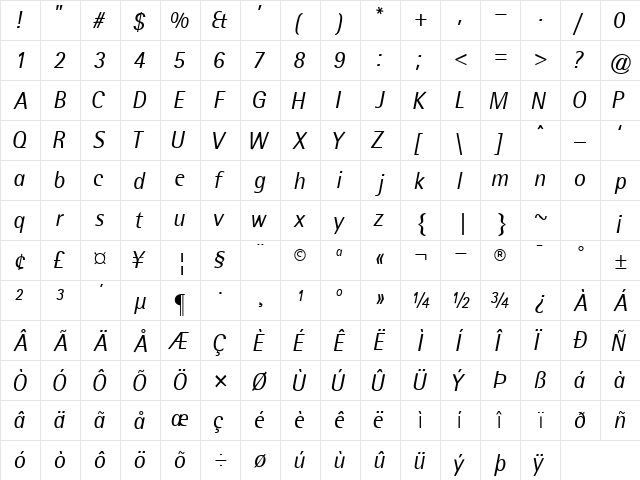
LibreSemiSansLightSSK Italic Font Preview
LibreSemiSansLightSSK Italic
Design Context for LibreSemiSansLightSSK Typeface
LibreSemiSansLightSSK is a composed and adaptable typeface that performs quietly and consistently across a wide range of design contexts. The slanted form adds forward momentum and visual energy. The delicate stroke weight brings airiness and refinement to layouts.